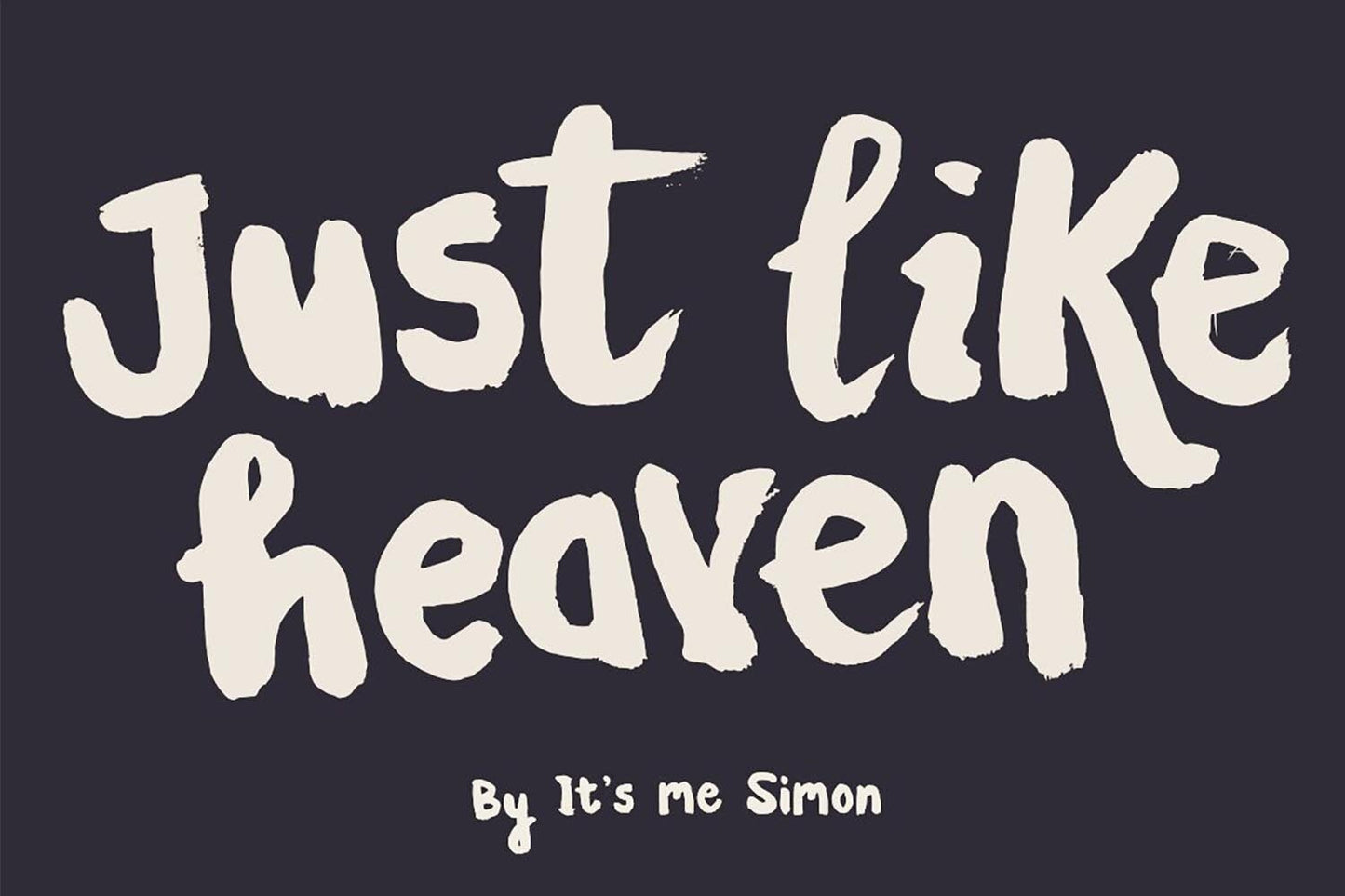
No. This is Simon Stratford’s original Just Like Heaven brush display font, first released in 2016. The similarly named typeface used in Olivia Rodrigo’s 2026 campaign is a different design.
An impossible task
There is just so much randomness to real brush lettering that can't be replicated in a black and white typeface—but I'm still willing to give it a go.
You get it or you don't
Just Like Heaven is certainly different and borders on the bizarre. It's bizarre because nothing really fits together. That gives it that slightly unhinged look. It's a look that you either get or you don't. Type purists will certainly hate it—and that's okay.
Keeping the weird
I made a concerted effort to keep the ugly characters. Sounds odd? It's easy to edit out the glyphs that you think look ugly. That's what everyone else does. So I kept them. Just because a font is static and set in stone doesn't mean it has to be perfect. People are looking for the perfect line. I'm looking for the distressed line, give me that any day.
Just Like Heaven Font Name
I needed a name so I could save all my sketches and whack them in illustrator. I've always got music on the go, and The Cure's Just Like Heaven came on. So I named the font after the song. It was meant to be a temporary name but I stuck with it.
OpenType
Just Like Heaven has 4 alternatives for each uppercase and lowercase glyph. It uses OpenType technology to cycle through those glyphs to give your type a more random appearance. The different alternatives are only available via OpenType aware applications. The glyphs are in stylistic sets, so you can turn off contextual alternatives and select them manually. Just Like Heaven font includes;
- One weight
- Uppercase and lowercase
- Numbers
- Punctuation & Symbols
- 4 alternatives for letters
- Western European characters
- Central European characters
- South Eastern European characters